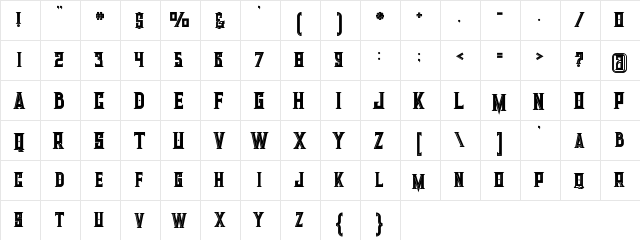
Giant bold inline Regular
Design Context for Giant bold inline Typeface
Giant bold inline is built around its visual character rather than neutral utility — its distinctive forms are designed to make an impression at display sizes. The heavy weight commands attention and anchors typographic hierarchies.
Font Pairing: Pair with a clean neutral sans-serif for body copy to let Giant bold inline's character lead without overwhelming the composition.
Pro Tip: Treat Giant bold inline as the centrepiece of your typographic hierarchy. One strong heading set in a decorative face can carry an entire layout.